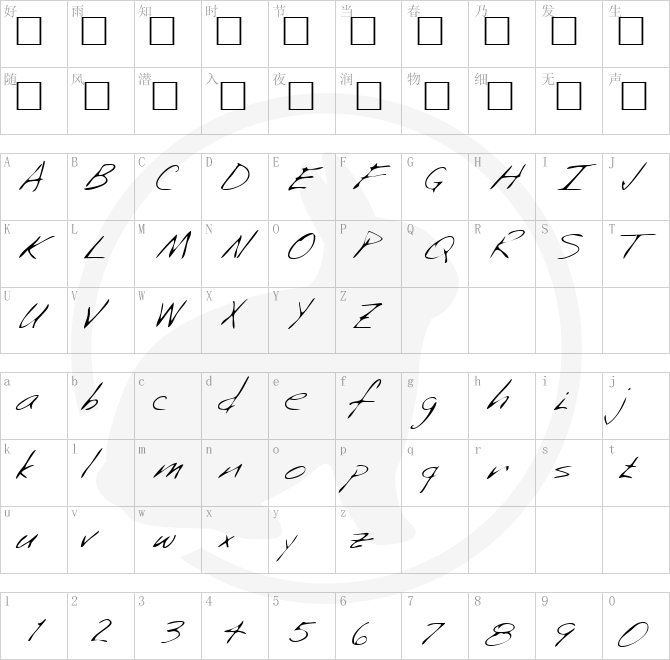
- Font Name:SaffronsHand
SaffronsHand-Regular-copy-1-.ttf is a very beautiful artistic font, SaffronsHand-Regular-copy-1-.ttf is widely used in the design and printing of various books and pictures,SaffronsHand-Regular-copy-1-.ttf has a strong visual impact,SaffronsHand-Regular-copy-1-.ttf is a commonly used font in newspapers, magazines and books, and is used in posters, e-commerce Poster design, store design, logo design, font design and other fields.SaffronsHand-Regular-copy-1-.